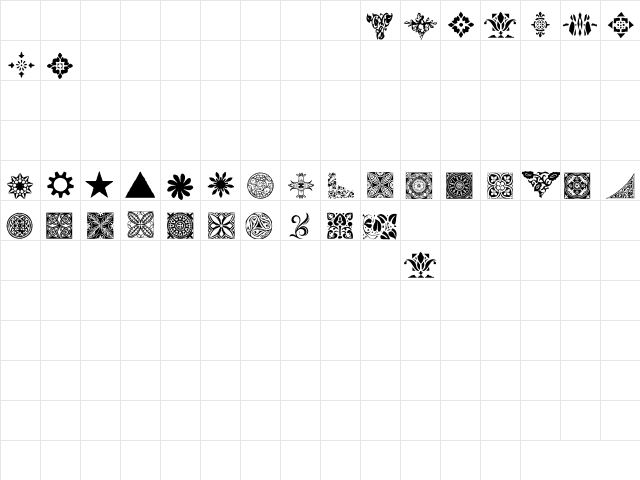
AEZ deco dings Font Preview
| Designer | Anastacia E. Zittel |
Design Context for AEZ deco dings Typeface
AEZ deco dings is a composed and adaptable typeface that performs quietly and consistently across a wide range of design contexts.